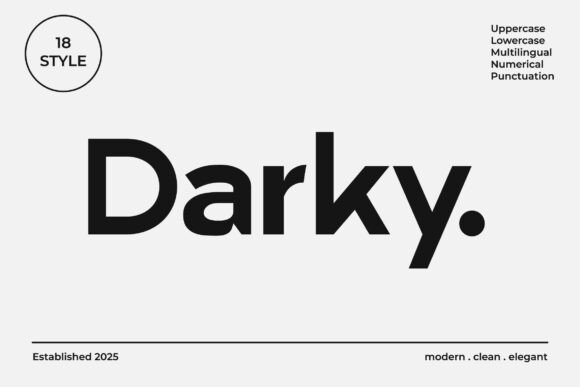
Introducing Darky Font: The Ultimate Sans Serif for Modern Design
In the world of typography, a font can make all the difference in the success of a design project. With the right font, you can convey your message with clarity, elegance, and impact. This is where Darky Font comes in – a bold and contemporary sans serif font family designed to bring power, clarity, and flexibility to your typography.
Key Features of Darky Font
- Clean Structure: Darky Font boasts a clean and minimalist structure that ensures perfect readability, even at small sizes.
- Solid Geometry: The font’s solid geometric shapes provide a sense of stability and reliability, making it perfect for designs that require a professional touch.
- Modern Proportions: Darky’s modern proportions ensure that the font looks great in a wide range of design applications, from digital screens to print materials.
- Bold and Contemporary: The font’s bold and contemporary style makes it perfect for designs that require a modern and edgy feel.
Design Applications for Darky Font
Darky Font’s versatility makes it perfect for a wide range of design applications, including:
- Impactful Headlines: Use Darky Font to create bold and attention-grabbing headlines that make a statement.
- Sleek Body Text: The font’s clean and readable design makes it perfect for body text, ensuring that your message is conveyed with clarity and ease.
- Branding and Identity: Darky Font’s modern and edgy style makes it perfect for branding and identity designs that require a bold and contemporary feel.
- Digital and Print Materials: The font’s versatility makes it perfect for use in a wide range of digital and print materials, including brochures, posters, and websites.
Typography Tips for Using Darky Font
To get the most out of Darky Font, here are some typography tips to keep in mind:
- Use Contrast: Use contrasting font sizes and styles to create visual hierarchy and emphasize important information.
- Experiment with Spacing: Experiment with different spacing options to create a unique and visually appealing design.
- Pair with Other Fonts: Darky Font pairs well with other sans serif fonts, so feel free to experiment with different font combinations.
The Benefits of Using Darky Font
So why choose Darky Font for your design project? Here are just a few benefits of using this versatile and modern font:
- Improved Readability: Darky Font’s clean and readable design ensures that your message is conveyed with clarity and ease.
- Enhanced Visual Appeal: The font’s bold and contemporary style adds a touch of modernity and sophistication to any design.
- Increased Versatility: Darky Font’s versatility makes it perfect for use in a wide range of design applications, from digital screens to print materials.
In conclusion, Darky Font is a bold and contemporary sans serif font family that brings power, clarity, and flexibility to your typography. With its clean structure, solid geometry, and modern proportions, Darky Font adapts perfectly to a wide range of design applications, from impactful headlines to sleek body text. Whether you’re a designer, developer, or simply a typography enthusiast, Darky Font is the perfect choice for any design project.